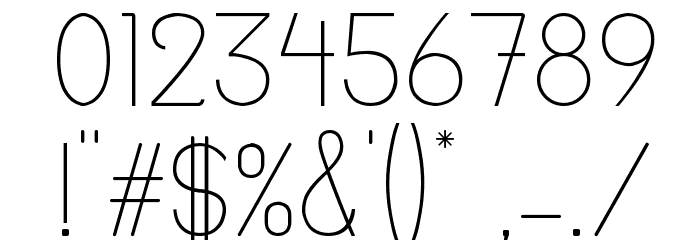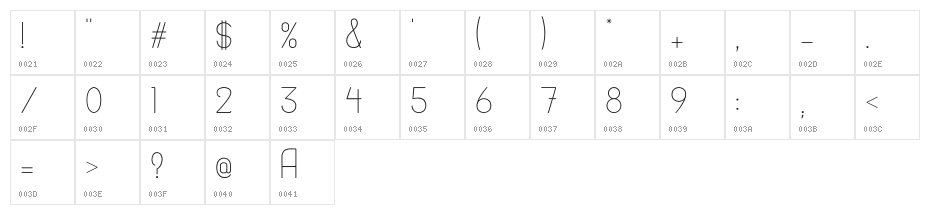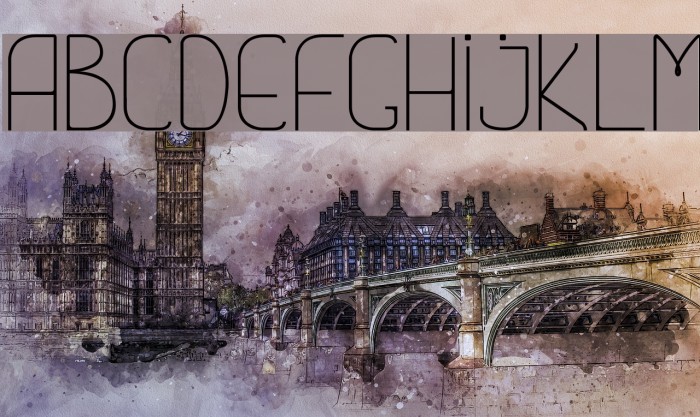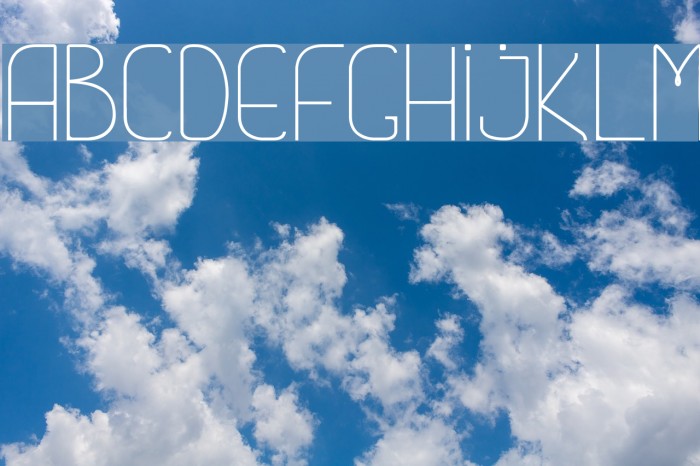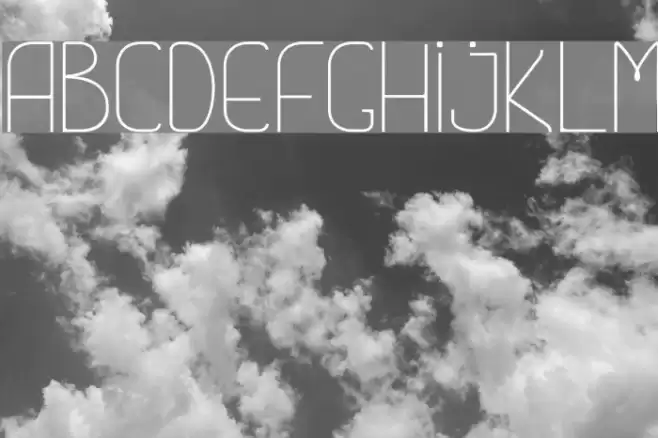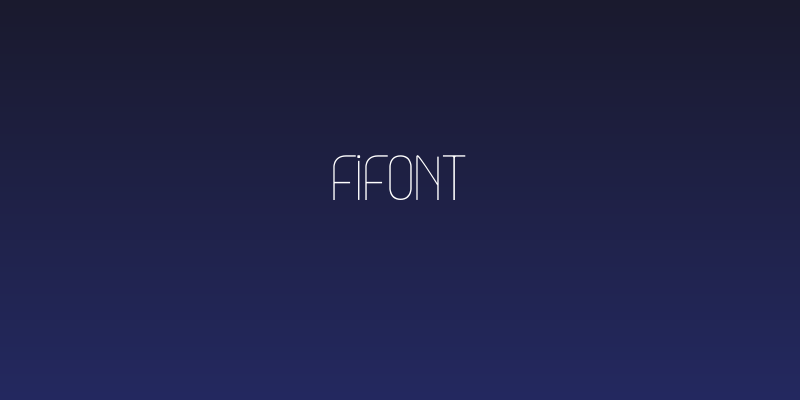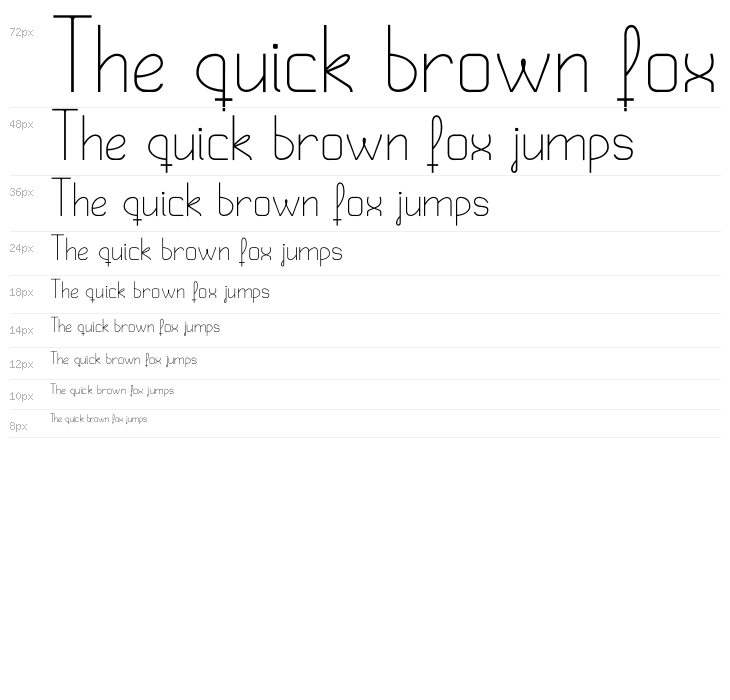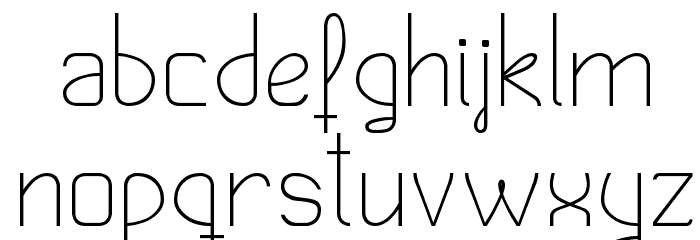
Fifont Font
Fifont Description
This font features a modern and sleek design with a geometric and minimalist aesthetic. The characters are tall and narrow, with a consistent stroke width that gives it a clean and sophisticated look. The uppercase letters have a distinct, elongated form, while the lowercase letters maintain a similar style with slight variations in curvature. The numbers are uniform and align well with the overall design. Special characters are included, maintaining the same geometric style. This font is ideal for projects that require a contemporary and stylish appearance.